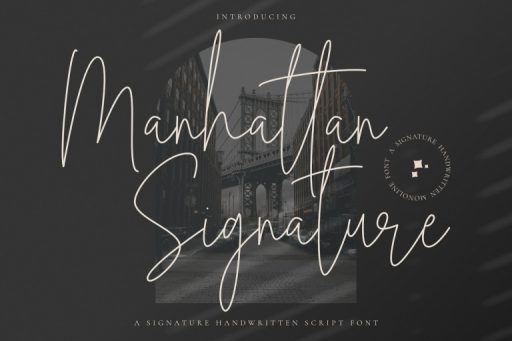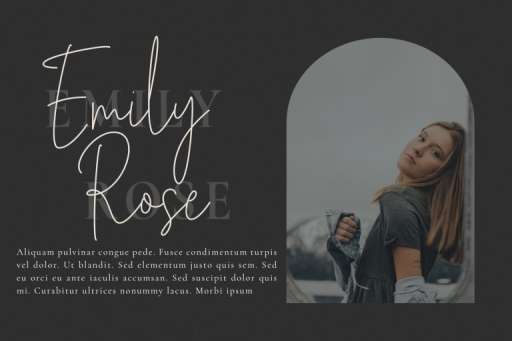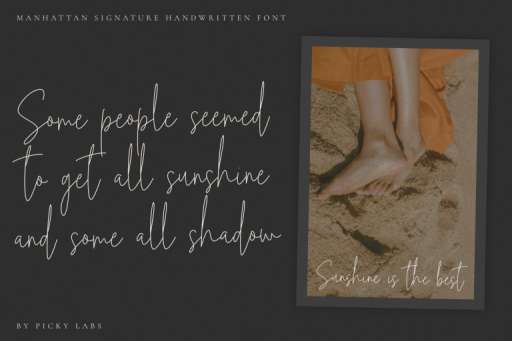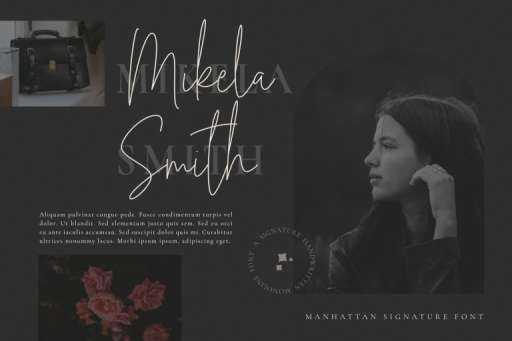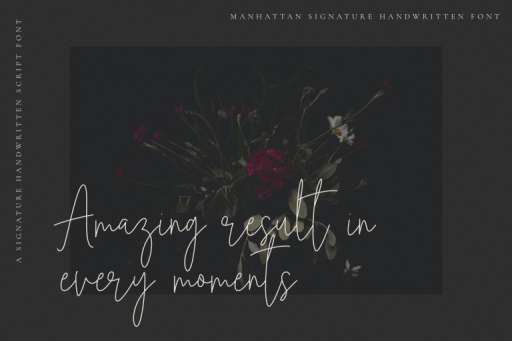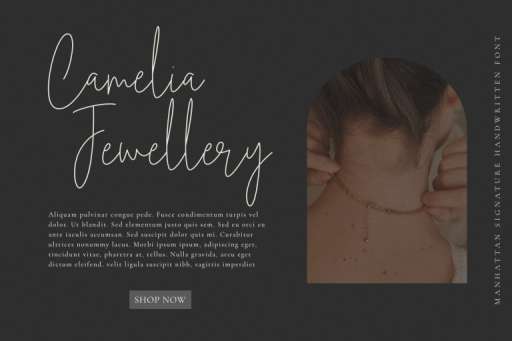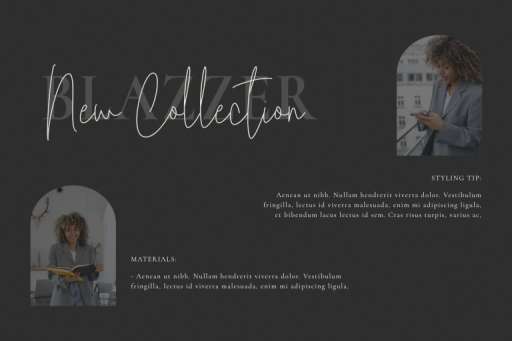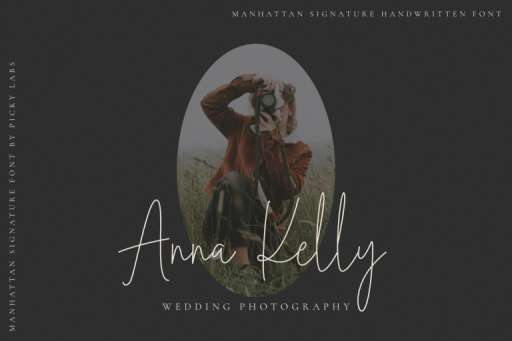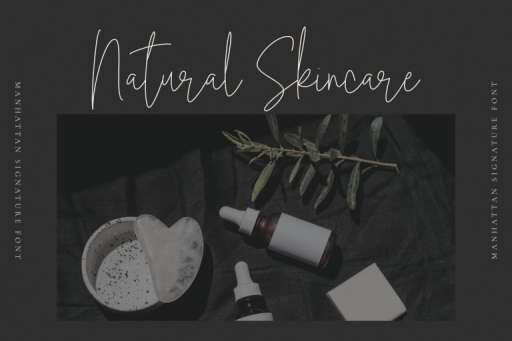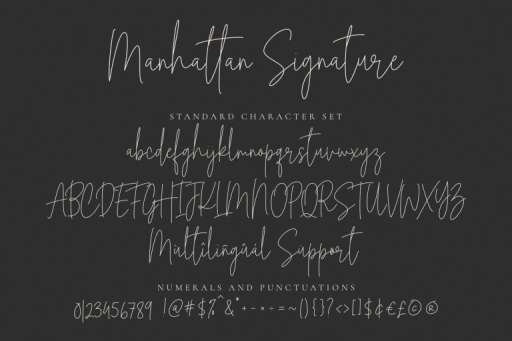
Manhattan Signature Font
Manhattan – Signature Business Font
Manhattan Signature font is a thin and elegant script font with monoline stylish. This script will give instant class and style to your work.
Manhattan Signature is a great choice for branding, news, logos, business cards, posters, product packaging, blog posters, and all your other lovely projects.
Manhattan Signature Font
Manhattan Signature font is a thin and elegant script font with monoline stylish. This script will give instant class and style to your work.